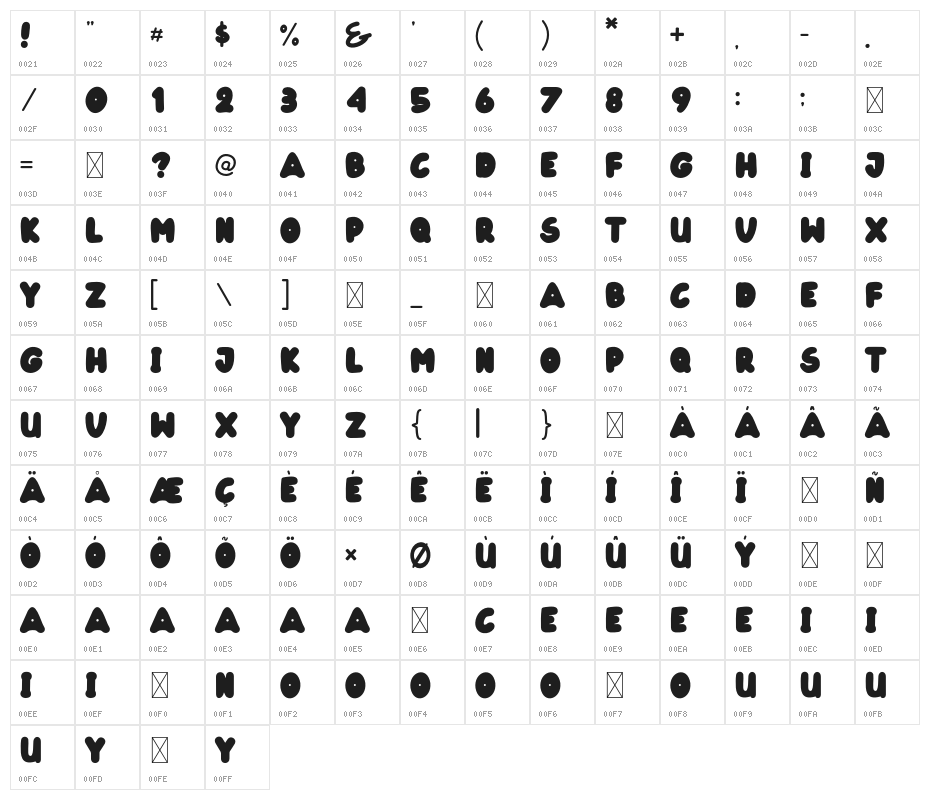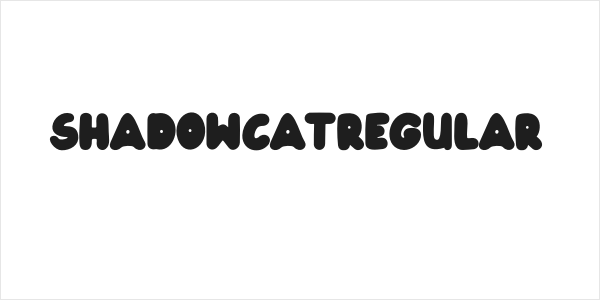
ShadowCatRegular Font
ShadowCatRegular Description
This playful and bold font features thick, rounded characters that convey a sense of fun and creativity. The letters are uniformly wide with a consistent stroke weight, giving the font a cohesive and solid appearance. The rounded edges and bubbly style make it particularly eye-catching and suitable for informal or whimsical designs. The numerals and special characters maintain the same playful aesthetic, ensuring a harmonious look across all text elements. This font is ideal for projects that require a friendly and approachable feel.
| Overall Style | Playful, Fun, Whimsical |
| Proposed Projects | Perfect for children's books, playful branding, event posters, and social media graphics. |